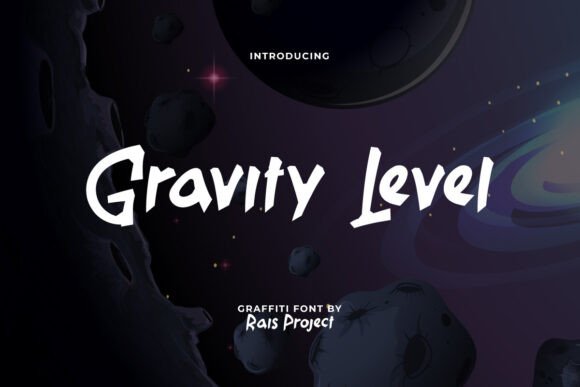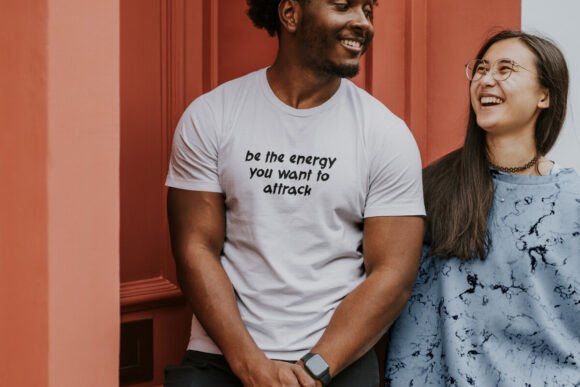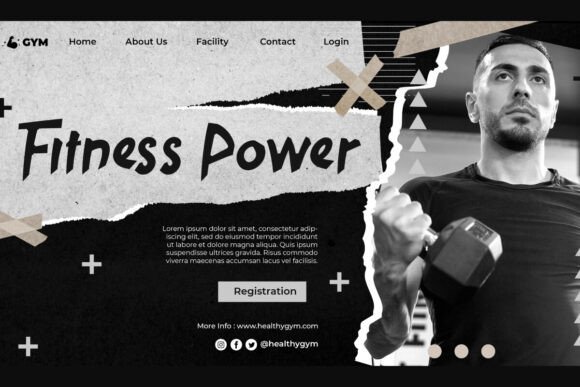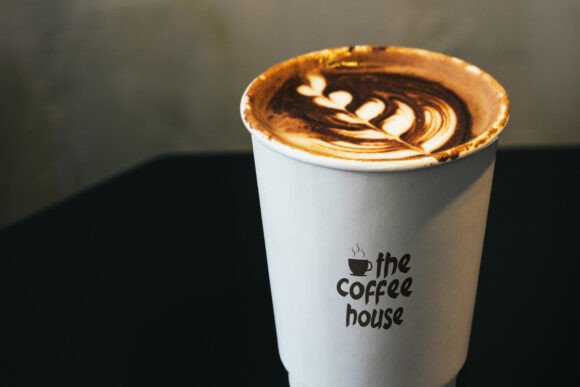
Gravity Level Font: Bold Display Font for Gaming & Social Media Design
About the Gravity Level Font
The Gravity Level Font offers a perfect balance of form and function for your design needs. Gravity Level Font is a modern, passionate gaming and technology display theme font. This typeface has a style that can radiate enthusiasm to anyone who sees the font. It is a modern, passionate gaming and technology display theme font. It will be good for any designs, such as advertisement, brand image, business card, cover, custom design, invitation, label, menu, poster, product packaging, quote, website page, and more!
Gravity Level excels as a headline font for projects related to gaming, technology, and energetic brands. Its strong forms work best in large sizes for posters, logos, and packaging where impact is key. Avoid using it for body text or UI elements; its boldness would hinder readability in smaller sizes or continuous blocks of text.
Pairing it with a clean sans-serif like Open Sans for body copy creates a balanced contrast, while a geometric sans-serif such as Roboto would complement its modern feel for a more technological aesthetic. For a slightly softer touch, consider pairing it with a delicate script font for secondary text elements.
The font’s overall personality is bold and assertive, conveying a sense of modern energy and dynamism. It’s ideal for projects needing a powerful and confident visual statement.